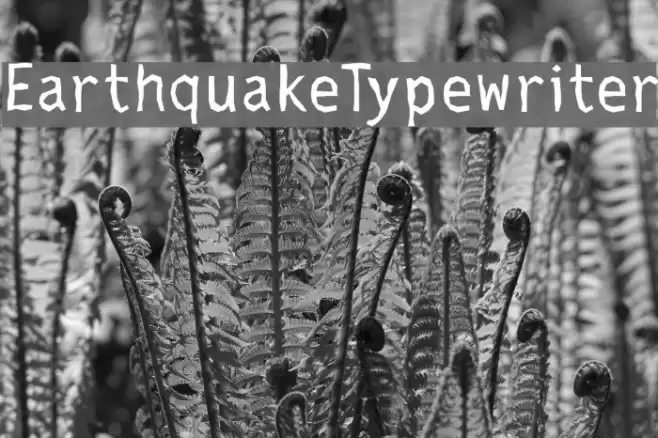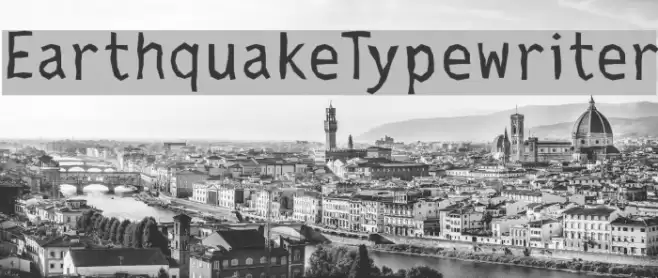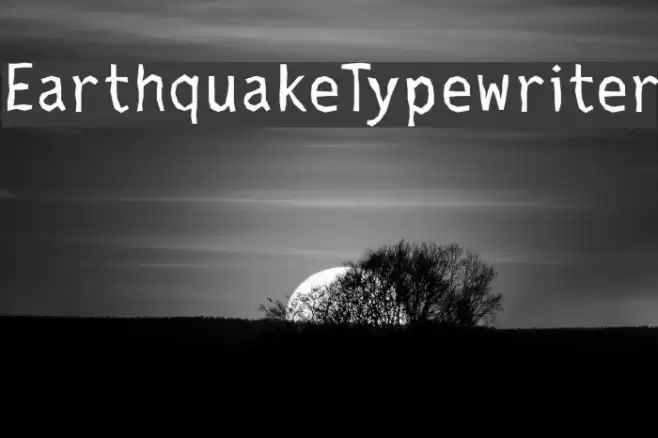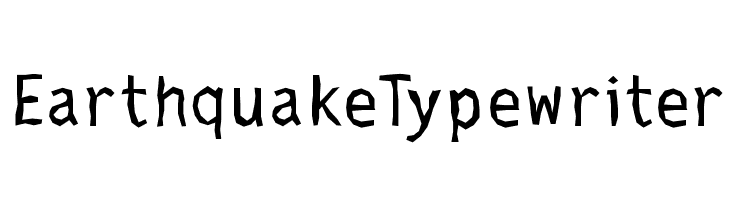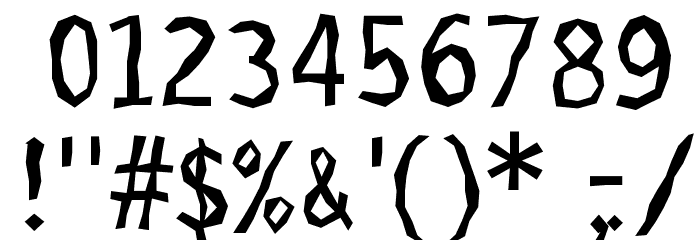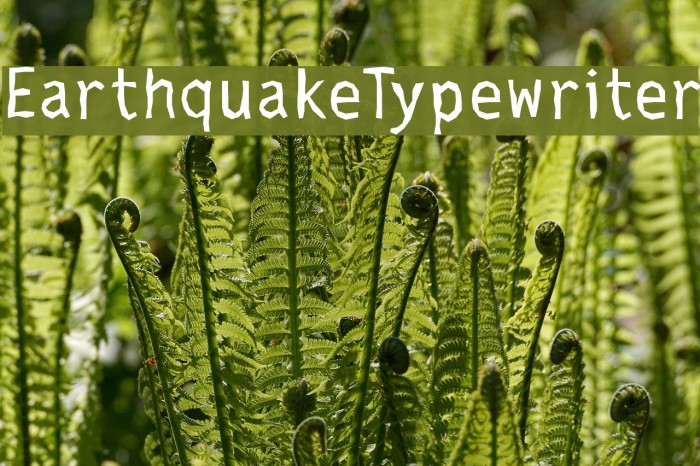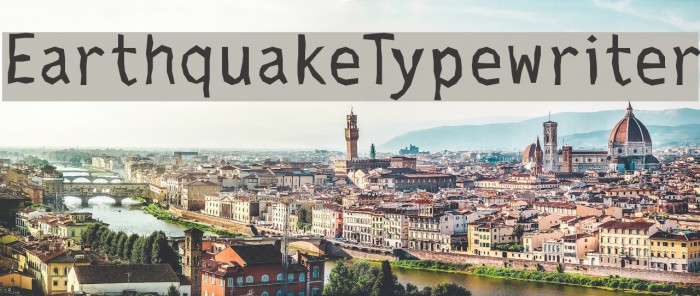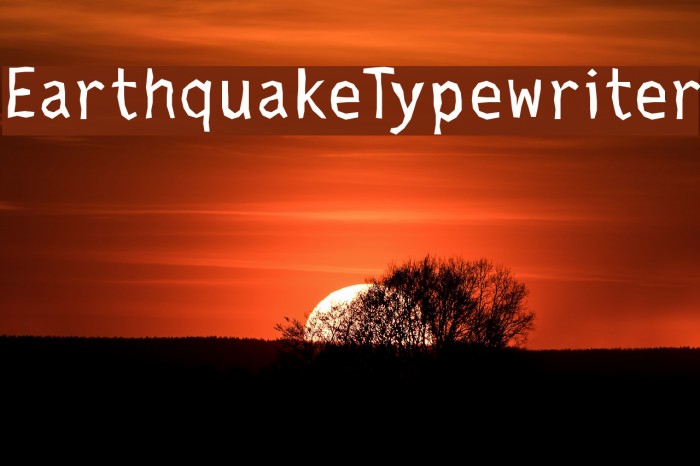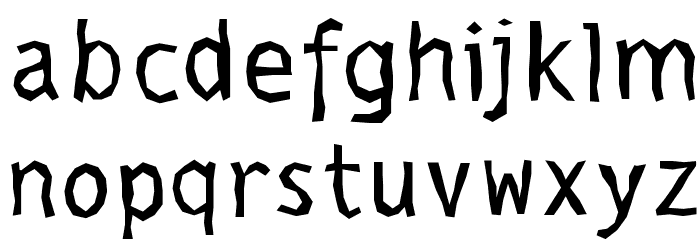
EarthquakeTypewriter Font
EarthquakeTypewriter Description
This font features a rugged, hand-drawn appearance reminiscent of old typewriter text with a modern twist. The characters are uneven and slightly distorted, giving them a unique, shaky look that adds character and personality. The uppercase and lowercase letters maintain a consistent style, with jagged edges and varying line thicknesses that create a dynamic visual effect. Numbers and special characters follow the same design principles, ensuring a cohesive look across all text elements. This font's distinctive style makes it ideal for projects that require a touch of vintage charm combined with a contemporary edge.
A rugged, hand-drawn typewriter-style font with a modern twist from Uncategorized fonts.
- Proposed Projects: Ideal for vintage-themed designs, posters, album covers, and creative branding projects.
- Overall Style: Vintage